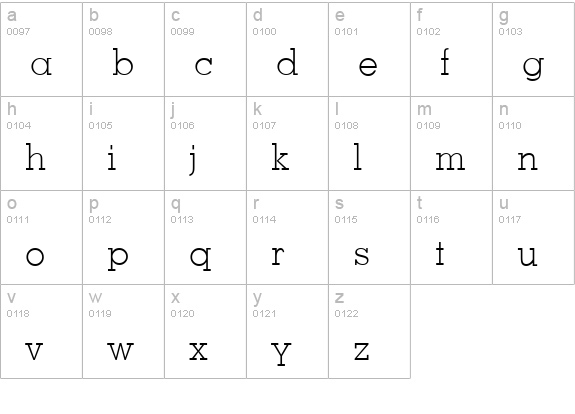
Missouri-Fine-Regular is the standard, neutral variant in the Missouri typeface family \xE2\x80\x94 well suited to general body text, paragraphs, and standard typographic work.
Missouri Fine Regular font is a modern and elegant typeface that exudes sophistication and charm. With its clean lines and timeless appeal, this font is perfect for a wide range of design projects, from branding to editorial design. The classic yet contemporary design of Missouri Fine Regular font makes it versatile and easy to incorporate into any project. What's even better is that Missouri Fine Regular font is available for free download at FontsMarket.com. This means that you can easily access this high-quality font to elevate your designs without breaking the bank. Whether you're working on a professional project or a personal endeavor, Missouri Fine Regular font is sure to add a touch of refinement and style. Download it now and see for yourself the impact this font can make on your designs.